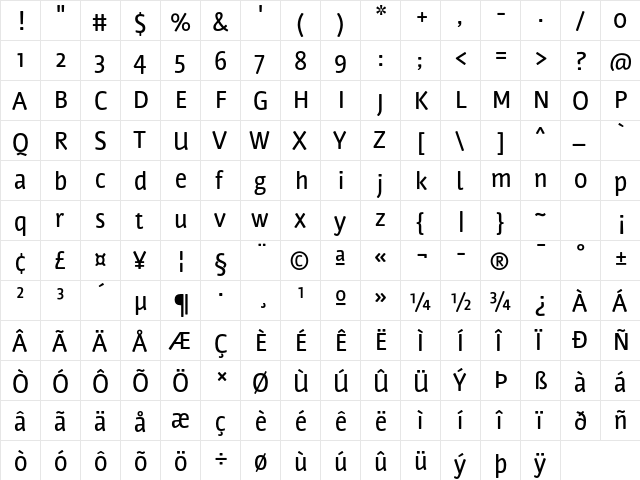
Nuvo OT Medium
| Foundry | FSI |
| Designer | Siegfried Rueckel |
Design Context for Nuvo OT Typeface
Nuvo OT offers clean, dependable letterforms without strong stylistic allegiance, making it a practical choice for designers who need flexibility.